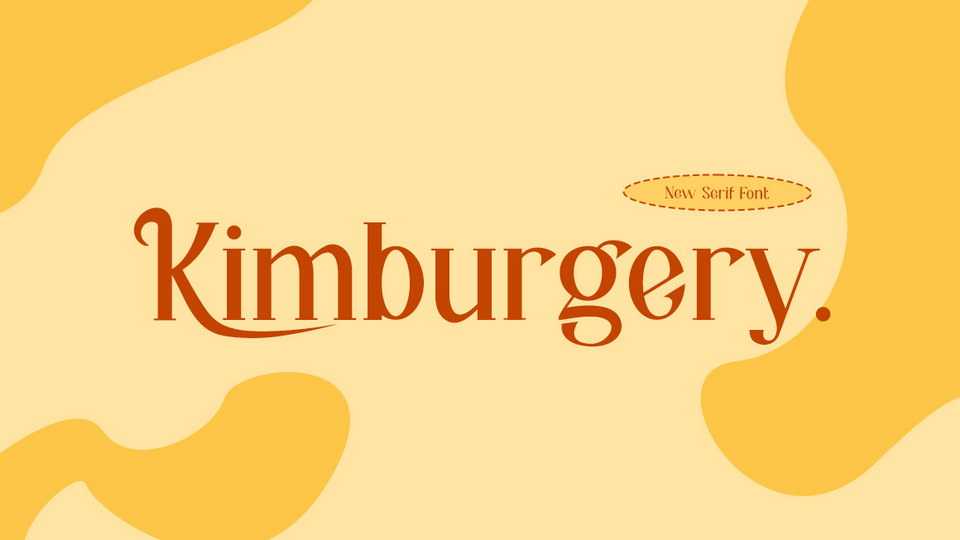
Download Kimburgery font, a modern serif typeface with an elegant style. Kimburgery is perfect for branding, logos, posters, invitation, fashion and more.
Designer: salamahstudio